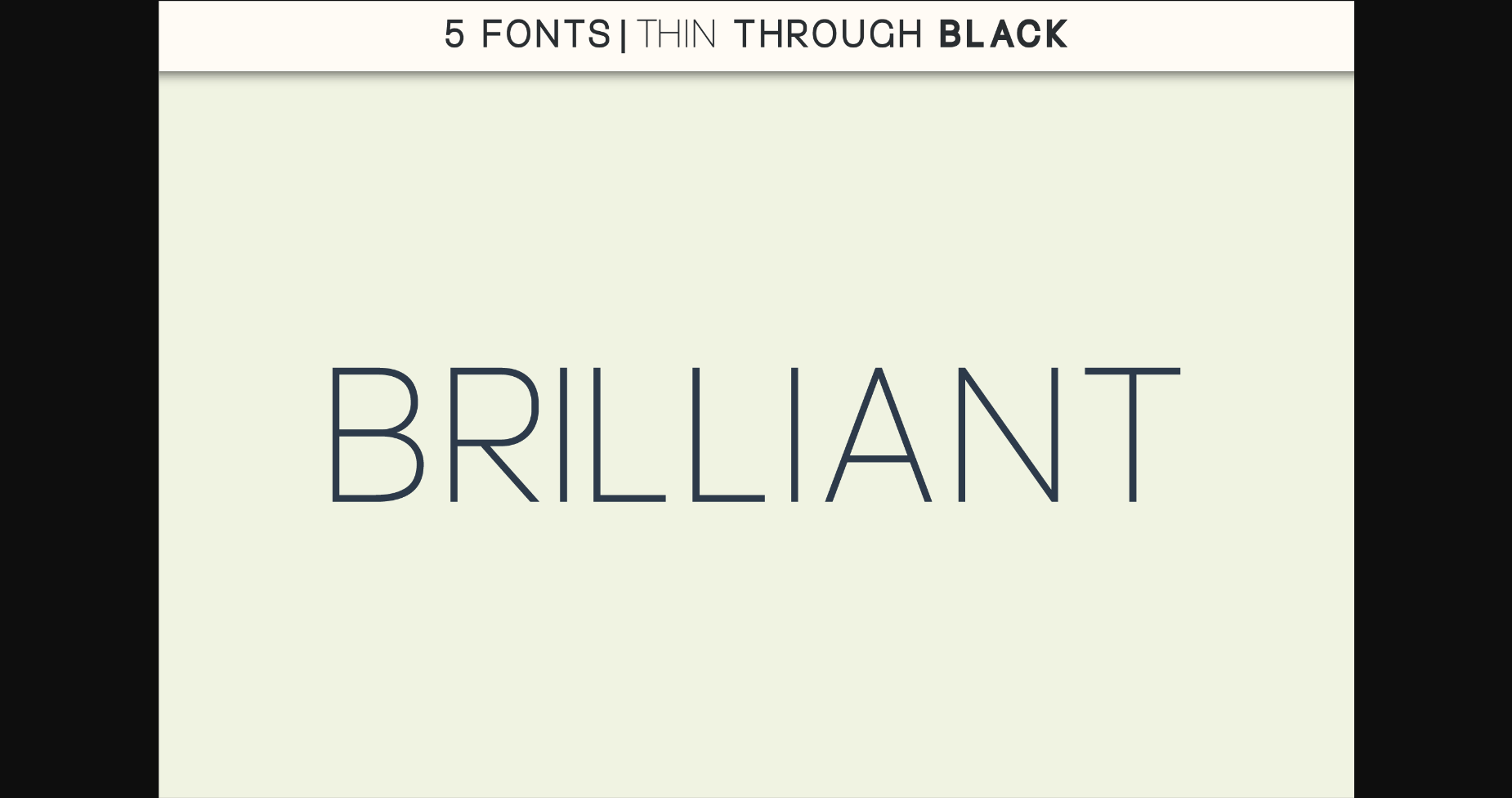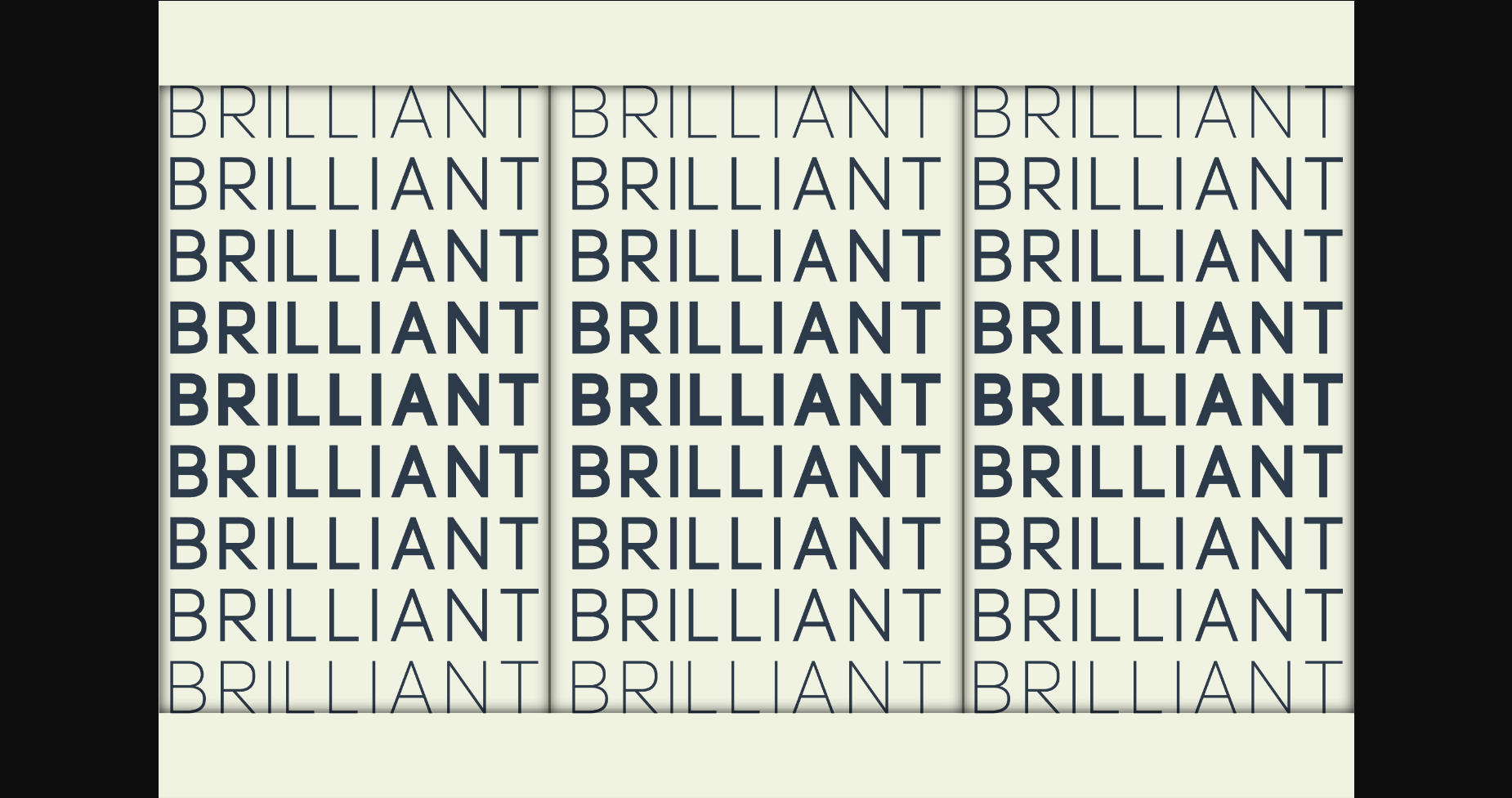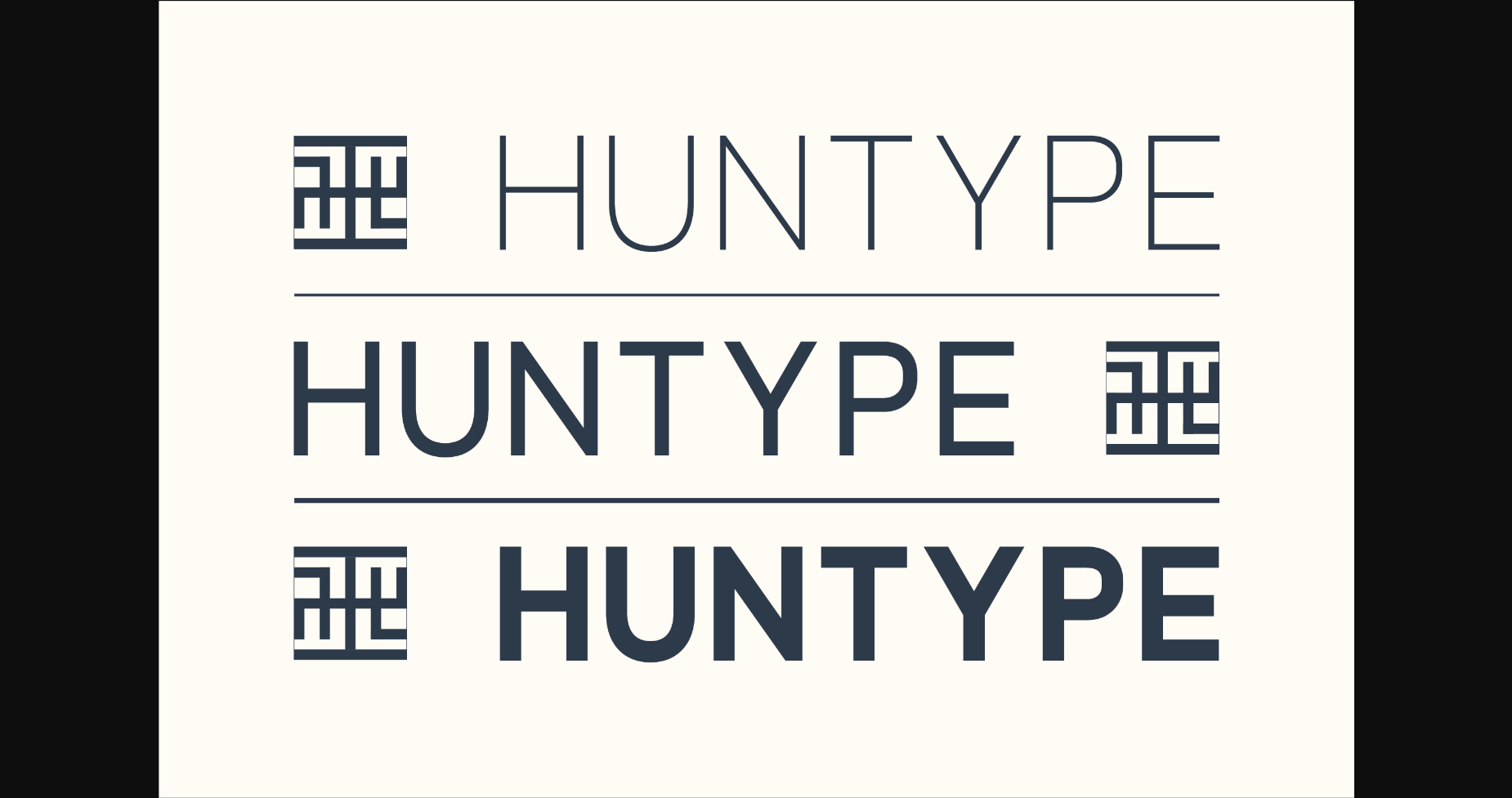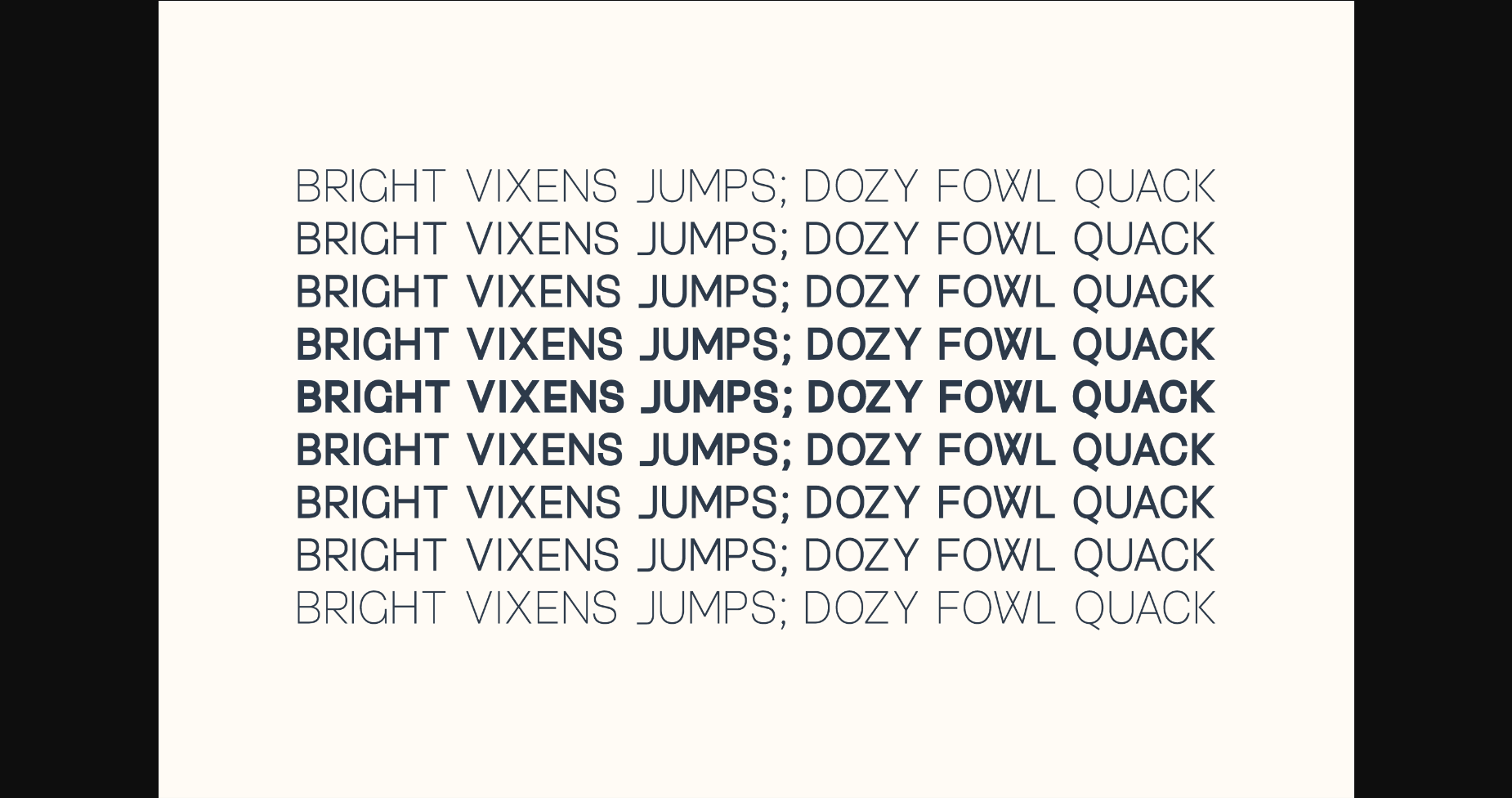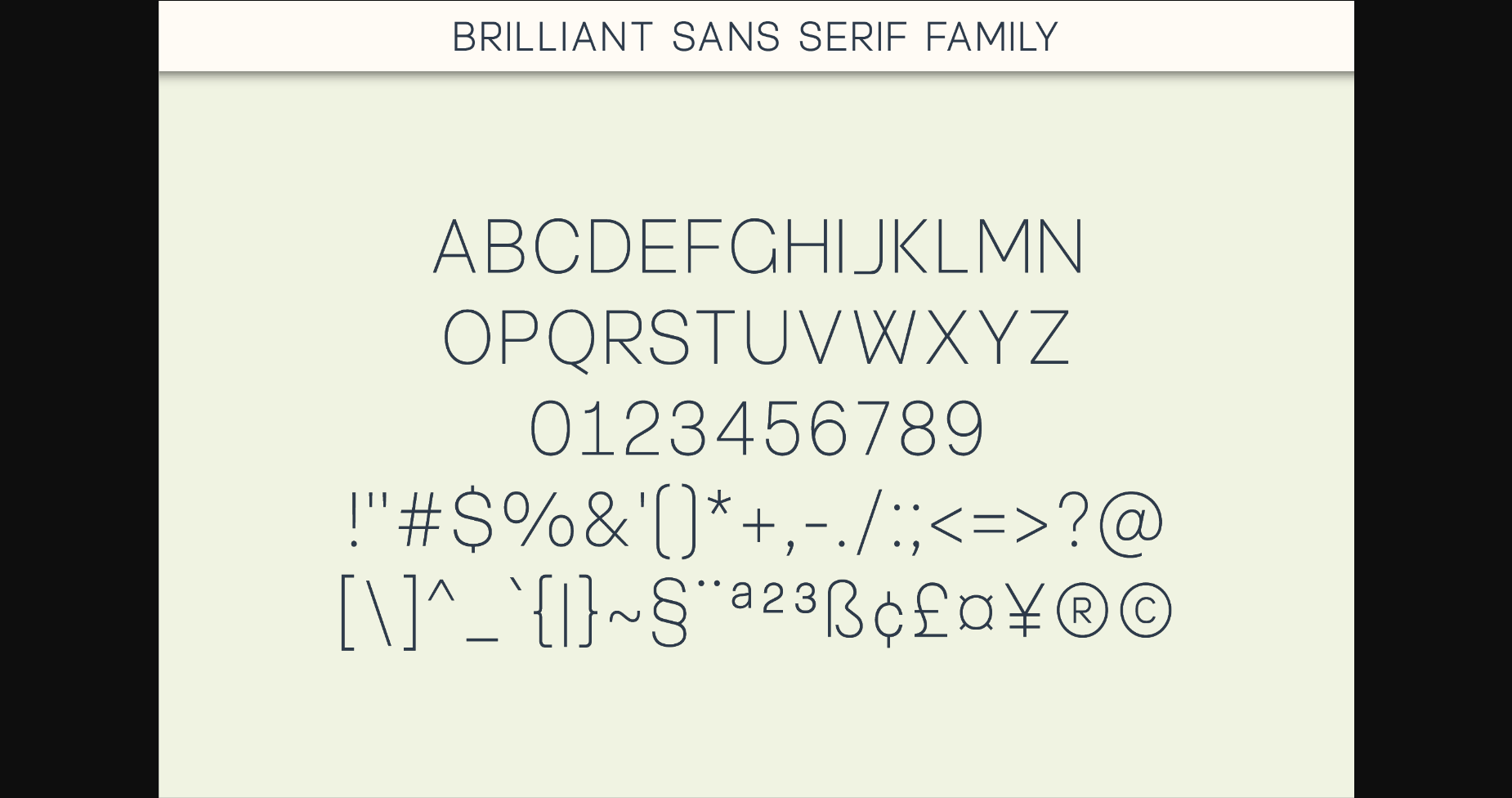
Brilliant Font
About Brilliant Font
With smooth and clean lines, and just a touch of contrast, Versailles works beautifully for logos, branding, and web headings.